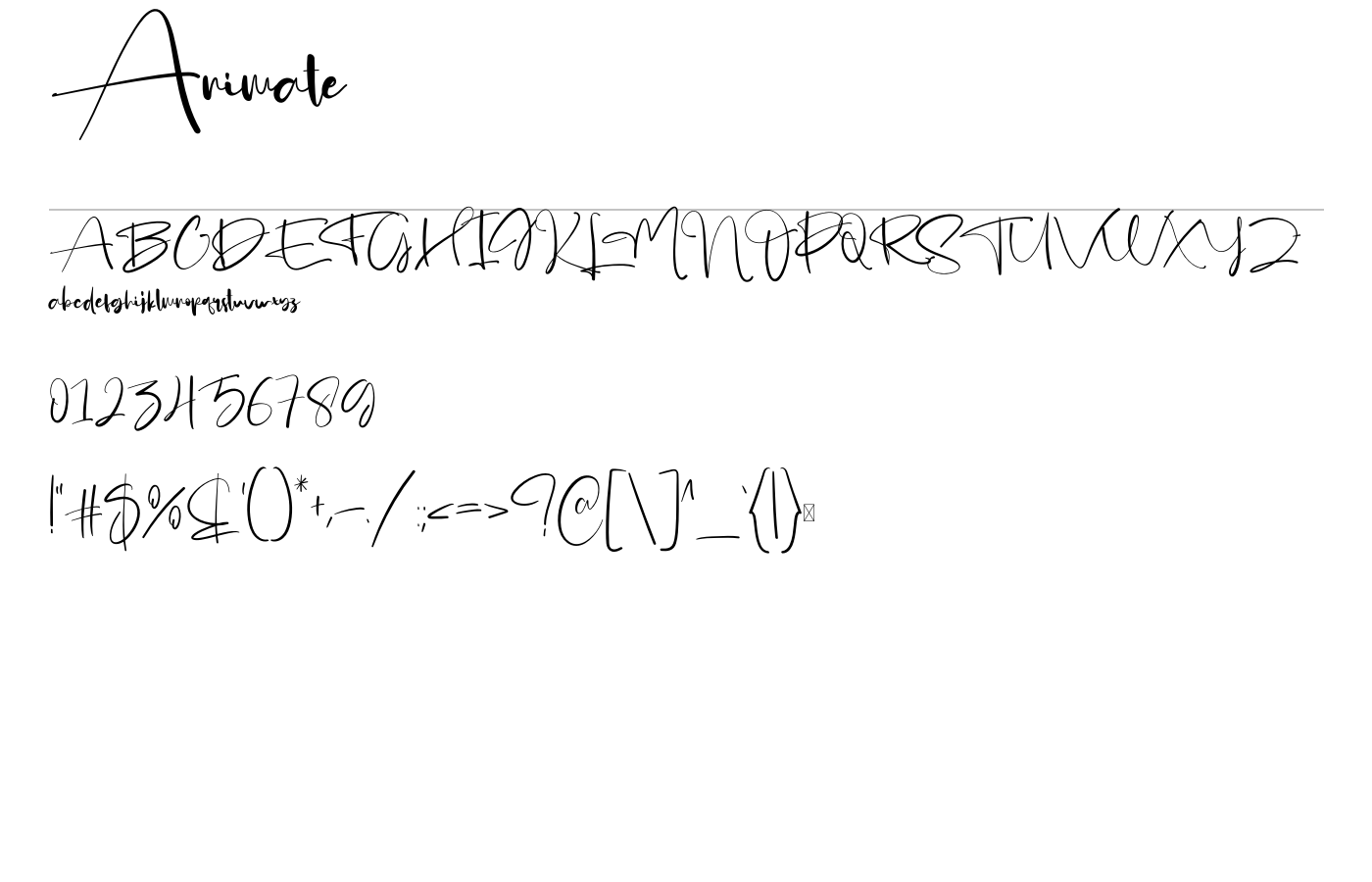
Animate Font is a delicate, hand-drawn script featuring tall, slender letterforms with a playful and airy feel. Its thin strokes and whimsical style make it ideal for creative projects that want to convey a personal, artistic touch, such as invitations, branding, and casual headlines. This font’s light and elegant character works best in contexts where a unique, informal charm is desired.
Animate Font